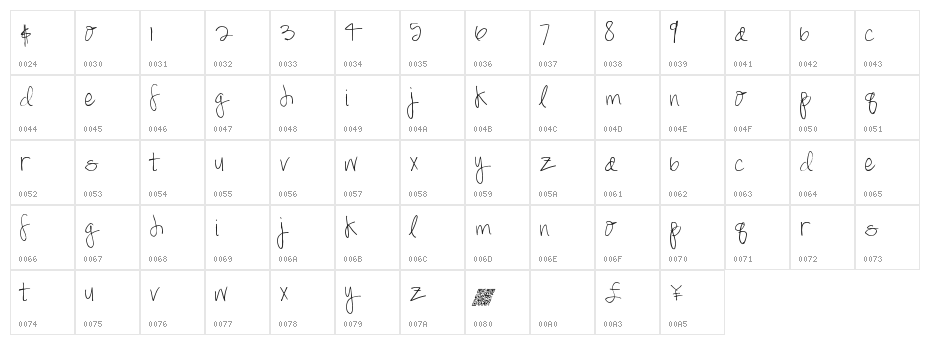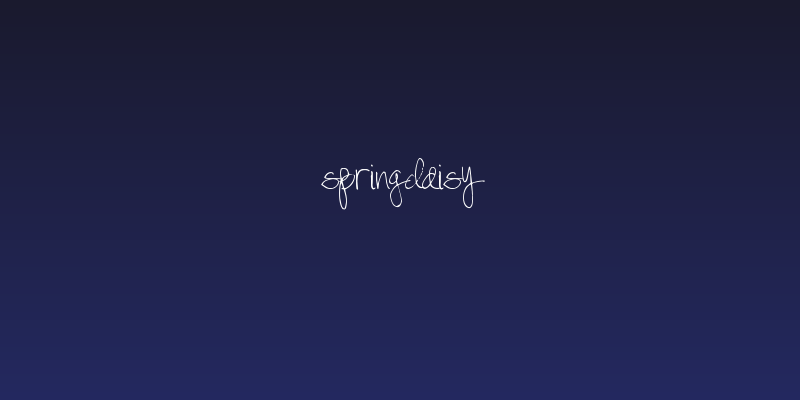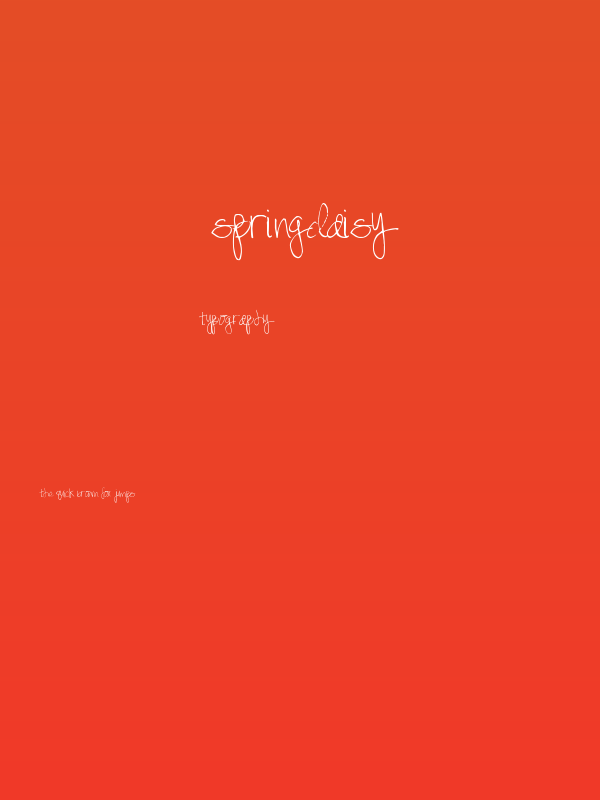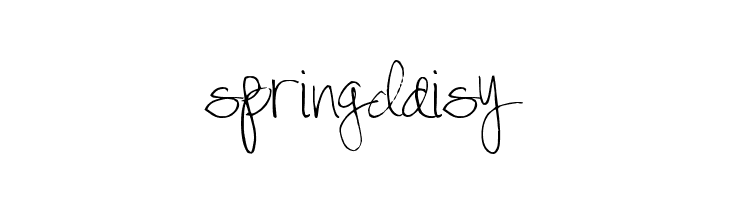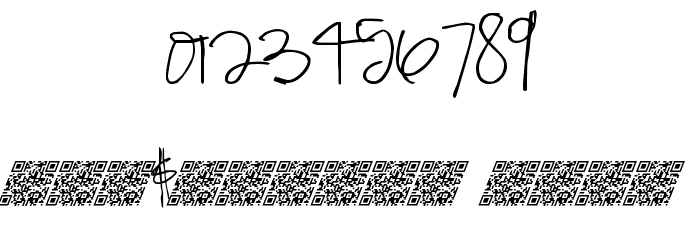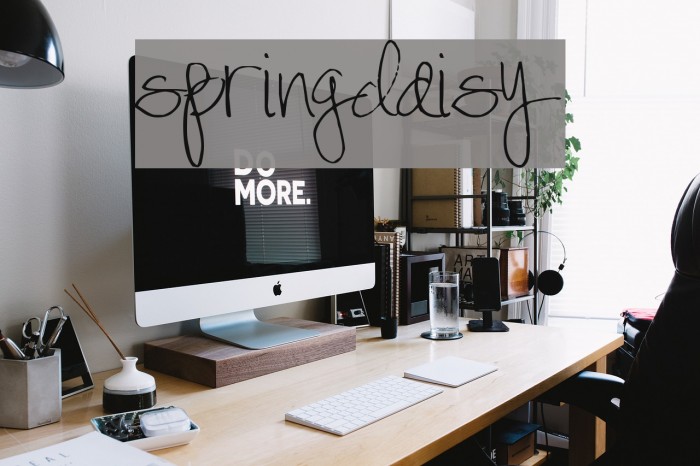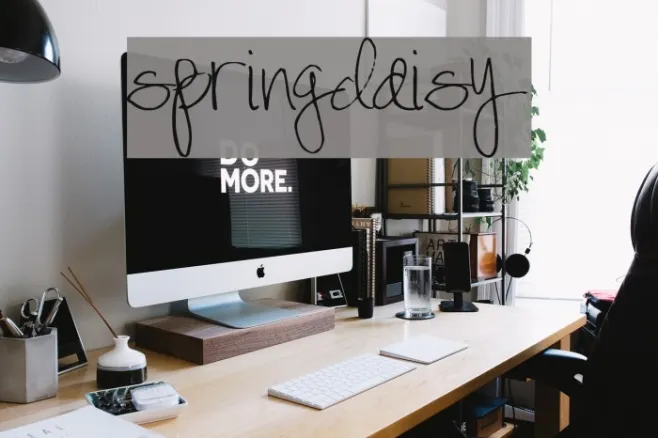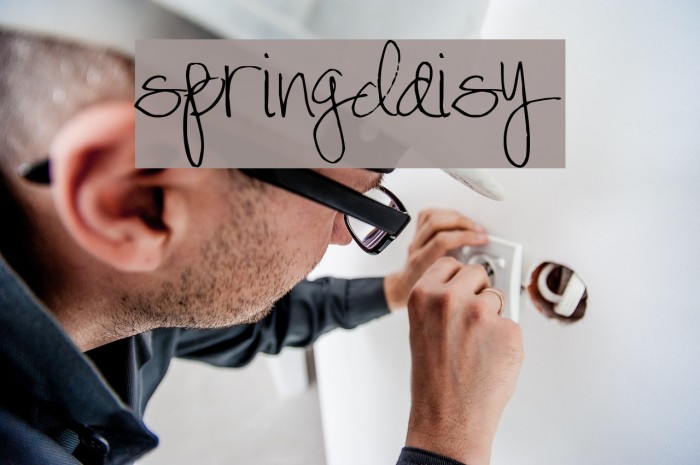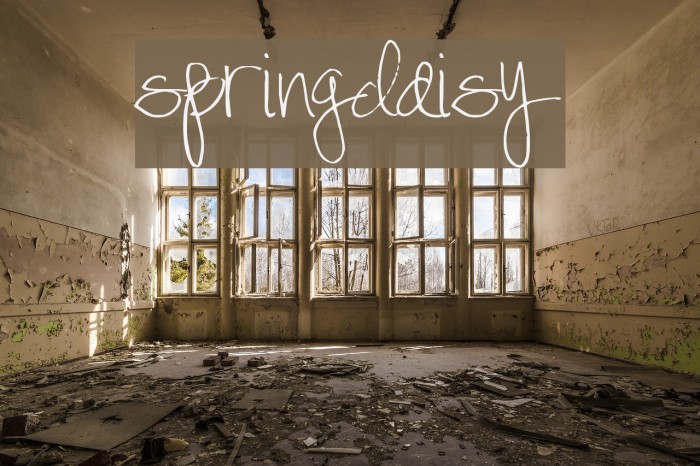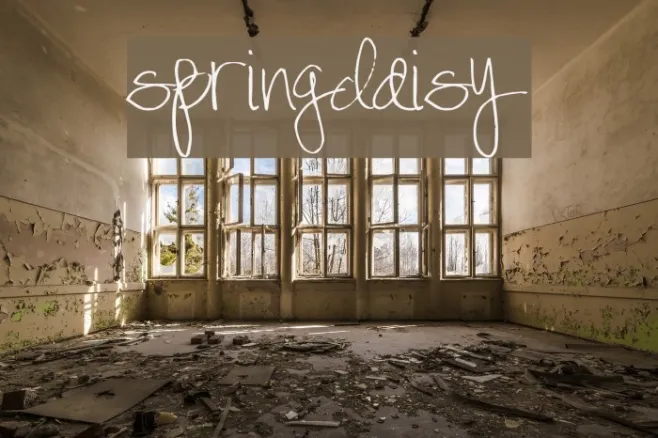
SpringDaisy Font
SpringDaisy Description
This font exudes a playful and whimsical charm, characterized by its handwritten style that mimics the fluidity and spontaneity of natural handwriting. The letters are connected with smooth, flowing strokes, giving it an organic and personal touch. The overall appearance is casual yet stylish, making it suitable for projects that require a friendly and approachable feel. The font maintains a consistent stroke width, providing a balanced and harmonious look. Its unique character shapes and slight slant add to its dynamic and lively personality.
| Proposed Projects | Ideal for greeting cards, invitations, personal branding, and creative projects that require a personal touch. |